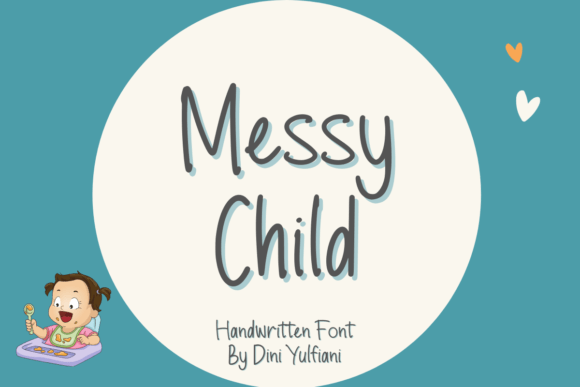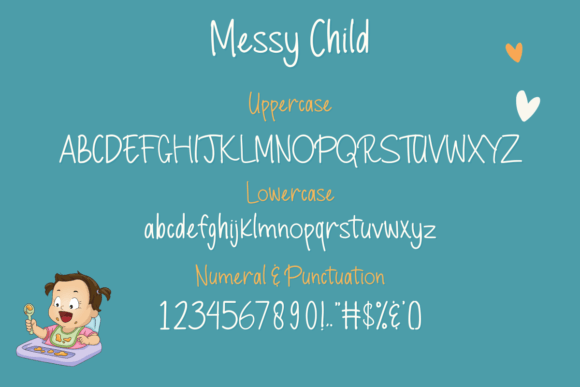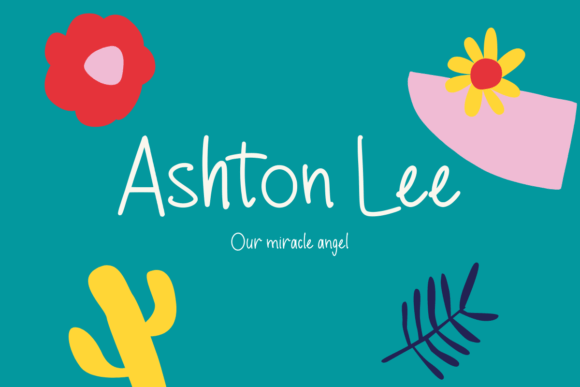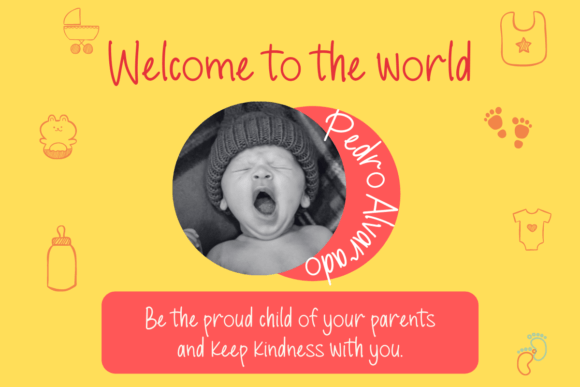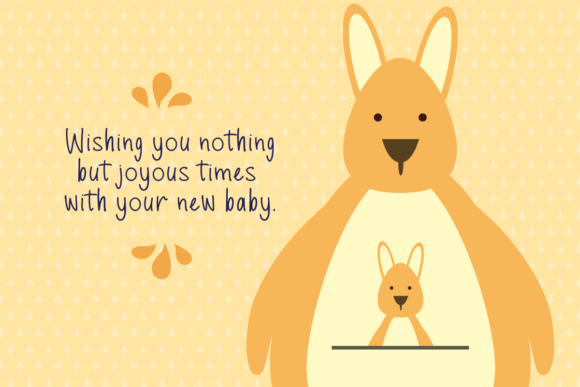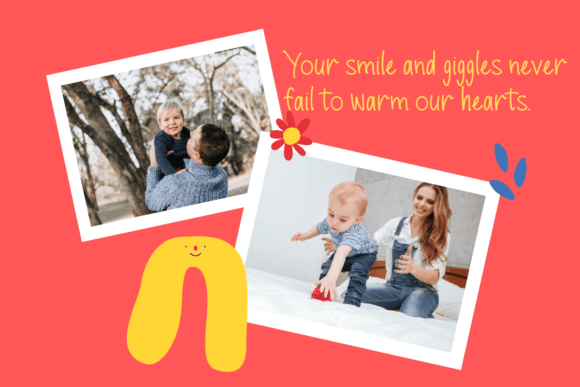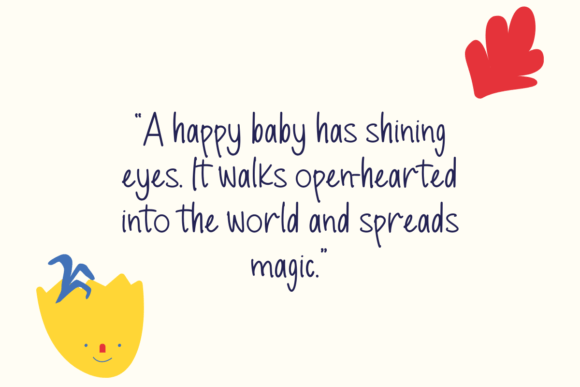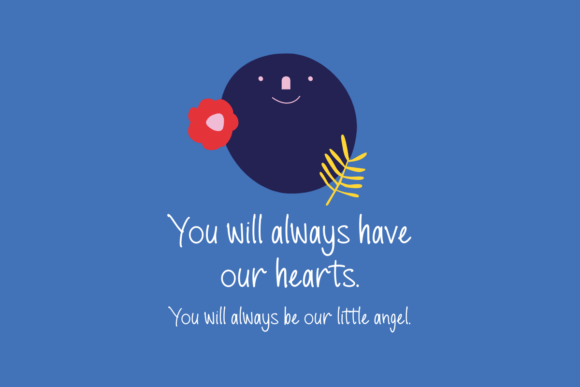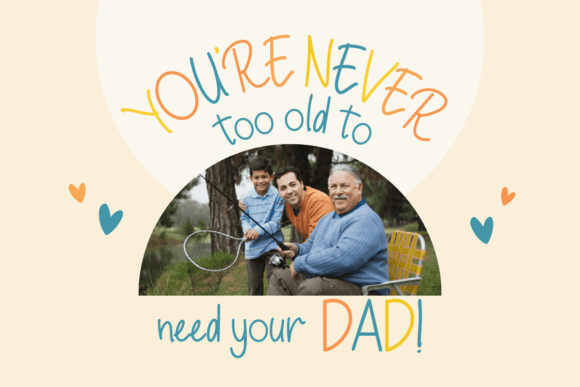
Messy Child Font
About Messy Child Font
“Messy Child” is not just a font; it’s a friendly and original handwritten typeface designed to bring a playful and approachable touch to your creative projects. With its unique and casual design, this font is perfect for adding a touch of personality and originality to a variety of applications.
Imagine “Messy Child” infusing its friendly vibe into your logos, creating a brand identity that feels approachable and relatable. Let it be the font that adds an original touch to your branding, titles, and social media posts, making them stand out with a distinct personality.
Envision “Messy Child” becoming a standout font in your toolkit, allowing you to effortlessly create designs that feel friendly and authentic. The font’s original handwritten style makes it a fantastic choice for projects that require a touch of informality and warmth.
For designs that demand a font with a friendly and original flair, “Messy Child” stands out as a typeface that brings a unique and approachable character. Its casual handwriting style offers a playful and genuine way to connect with your audience.
In any context where you want to convey a friendly and original tone through typography, “Messy Child” is the font that adds a touch of playfulness. Let it be the key element that transforms your projects into approachable and original expressions of creativity.
Whether you’re working on digital or print designs, “Messy Child” is a font that brings a sense of friendliness to your letters. Let it be the font that adds a casual and original touch to your logos, branding, titles, social media posts, and various other design projects.
Let “Messy Child” be the font that infuses your designs with a friendly and original vibe, turning them into approachable and authentic expressions. Embrace its casual handwritten style, and watch it bring a new level of warmth to your design endeavors.